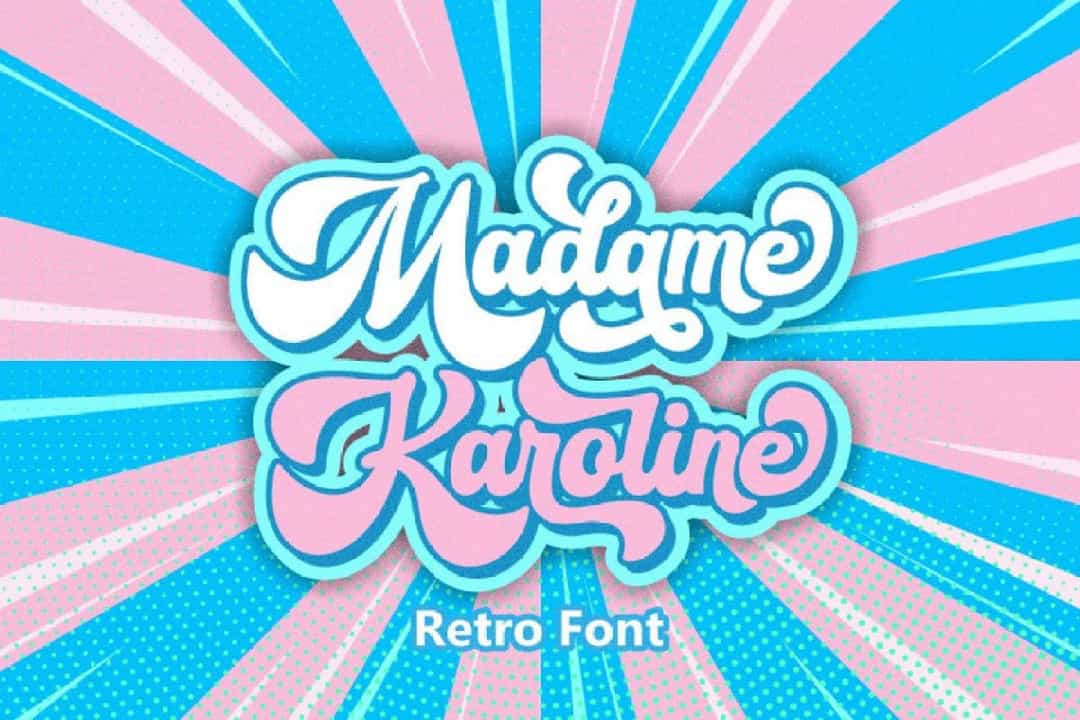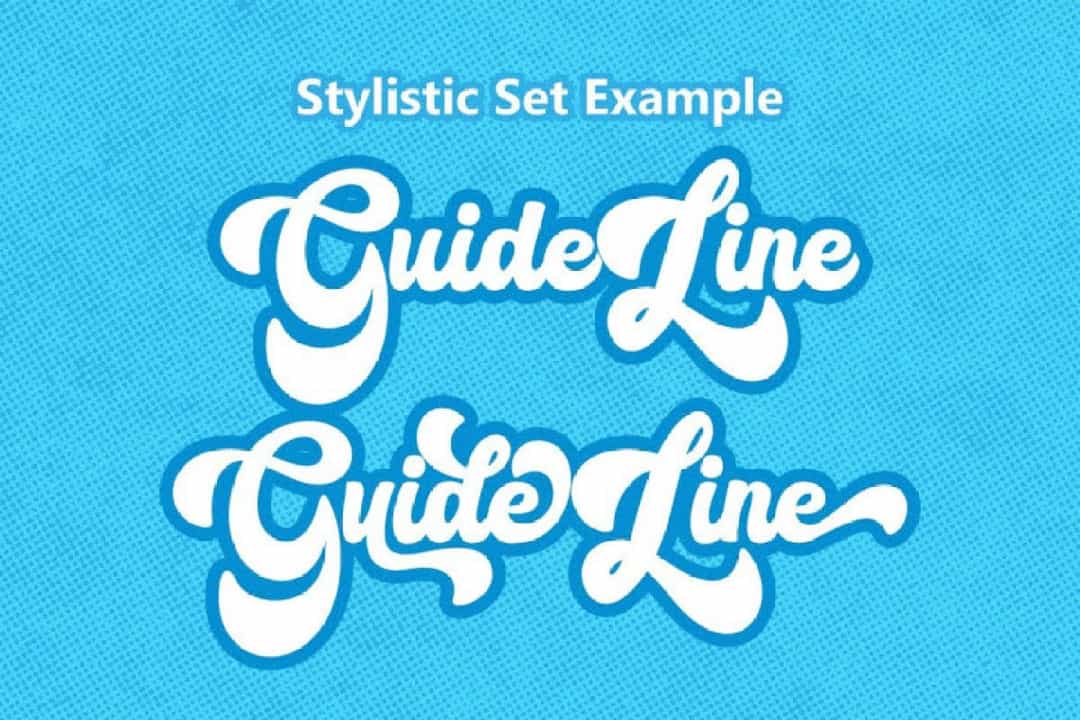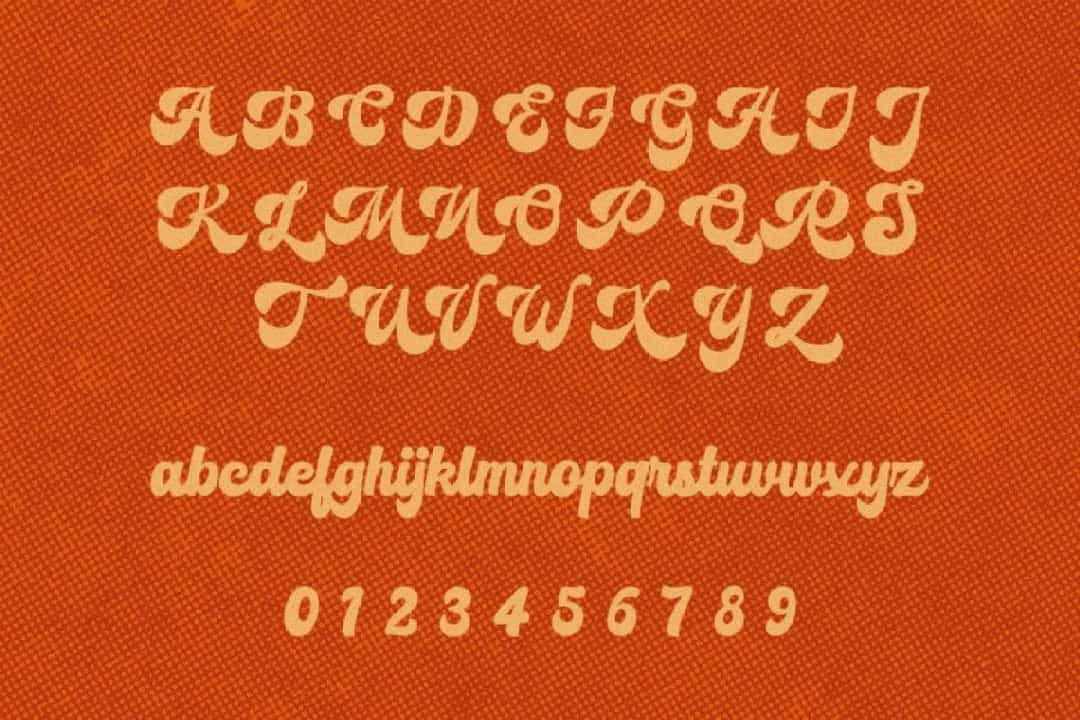
Madame Karoline is an iconic retro bold script font developed by Raditya Type Studio that exudes vintage elegance. Perfect for those who appreciate its classic yet vintage charm, Madame Karoline can add vintage appeal to designs without being outdated in appearance or style. Even if this font has already been utilized before it should pose no problems for designers who wish to use it again in their designs.